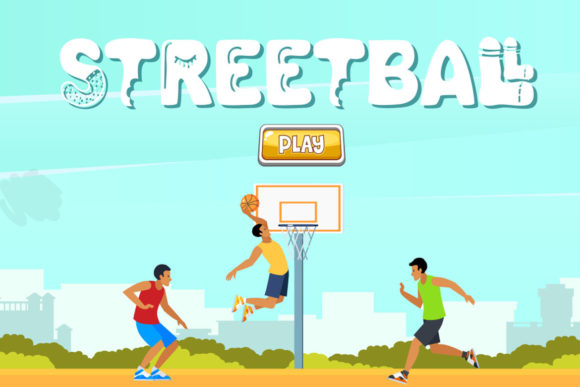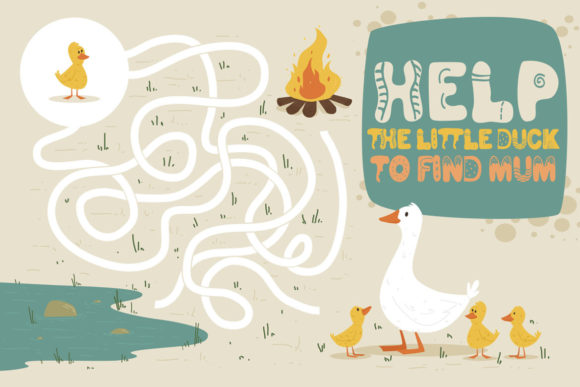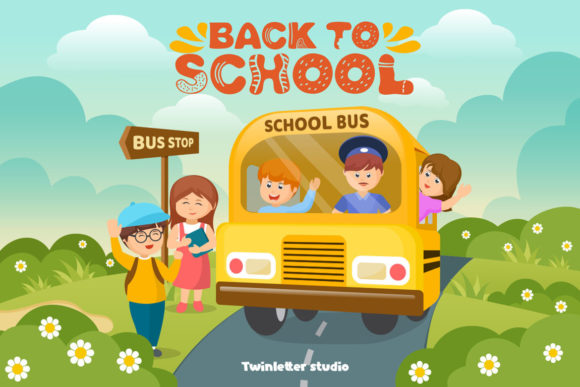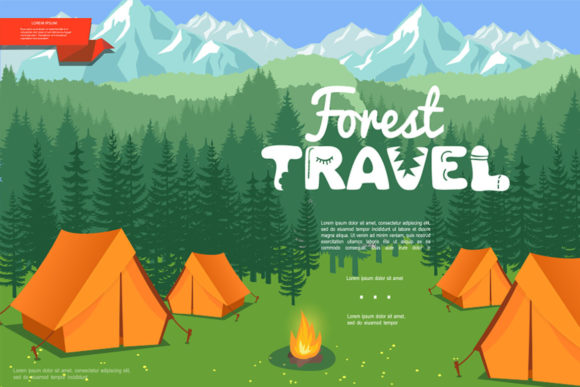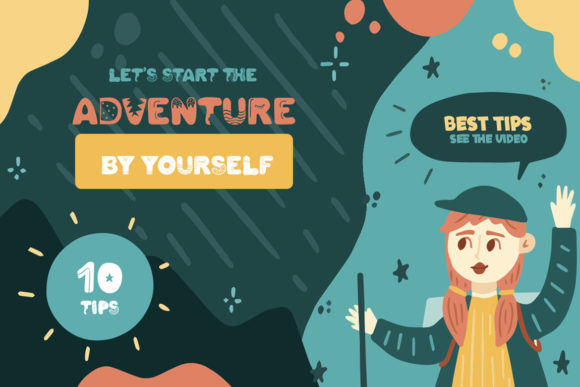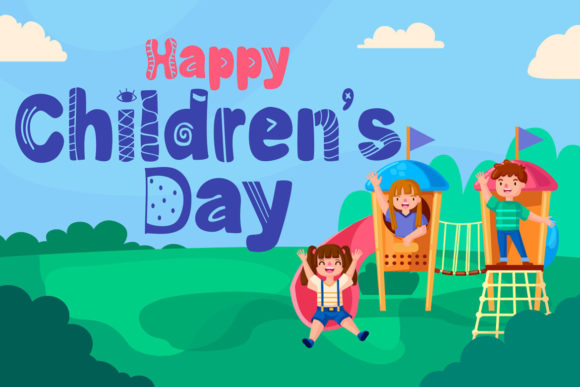
Dollan Font: The Playful and Quirky Display Font for Fun Projects
Are you looking for a font that can add a touch of playfulness and authenticity to your designs? Look no further than Dollan Font! This cool and quirky display font is perfect for any children activity or school project that requires a fun and lively feel.
What is Dollan Font?
Dollan Font is a display font designed to bring a sense of playfulness and whimsy to your designs. Its unique and quirky style makes it stand out from more traditional fonts, and its bold and eye-catching appearance is sure to grab attention.
Characteristics of Dollan Font
So, what makes Dollan Font so special? Here are just a few of its key characteristics:
- Playful and Quirky: Dollan Font is designed to be fun and playful, with a quirky style that’s perfect for kids’ activities and school projects.
- Display Font: Dollan Font is a display font, which means it’s designed to be used in large sizes to grab attention.
- Bold and Eye-Catching: With its bold and eye-catching appearance, Dollan Font is sure to stand out from more traditional fonts.
- Authentic: Despite its playful style, Dollan Font still manages to feel authentic and genuine, making it perfect for projects where you want to convey a sense of fun and personality.
Uses for Dollan Font
So, what can you use Dollan Font for? Here are just a few ideas to get you started:
- Kids’ Activities: Dollan Font is perfect for kids’ activities, such as worksheets, coloring pages, and activity sheets.
- School Projects: Whether you’re a teacher or a student, Dollan Font is a great choice for school projects, such as posters, presentations, and reports.
- Crafting Projects: Dollan Font is also great for crafting projects, such as scrapbooking, card making, and DIY signs.
- Digital Designs: And of course, Dollan Font can also be used in digital designs, such as social media graphics, blog posts, and website headers.
Why Choose Dollan Font?
So, why should you choose Dollan Font for your next project? Here are just a few reasons:
- Unique Style: Dollan Font has a unique and quirky style that’s sure to stand out from more traditional fonts.
- Easy to Read: Despite its playful style, Dollan Font is still easy to read, even in large sizes.
- Versatile: Dollan Font can be used in a wide range of projects, from kids’ activities to digital designs.
- Fun and Engaging: With Dollan Font, you can add a touch of fun and personality to your designs, making them more engaging and enjoyable for your audience.
Tips for Using Dollan Font
Here are a few tips for using Dollan Font in your designs:
- Use it in Large Sizes: Dollan Font is designed to be used in large sizes, so don’t be afraid to make it big and bold.
- Pair it with Other Fonts: Dollan Font can be paired with other fonts to create a unique and interesting contrast.
- Experiment with Colors: Dollan Font looks great in a wide range of colors, so don’t be afraid to experiment and find the perfect color for your design.
In conclusion, Dollan Font is a cool, quirky, and playful display font that’s perfect for any children activity or school project. With its unique style, bold and eye-catching appearance, and authentic feel, Dollan Font is sure to add a touch of fun and personality to your designs. So why not give it a try and see what amazing projects you can create?